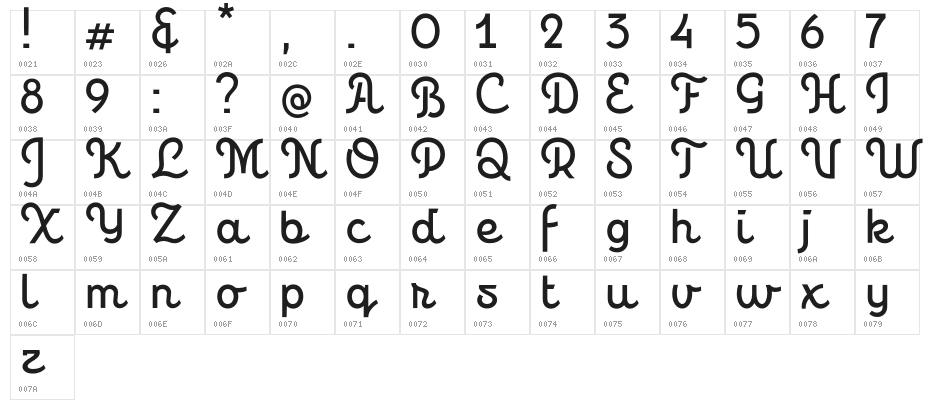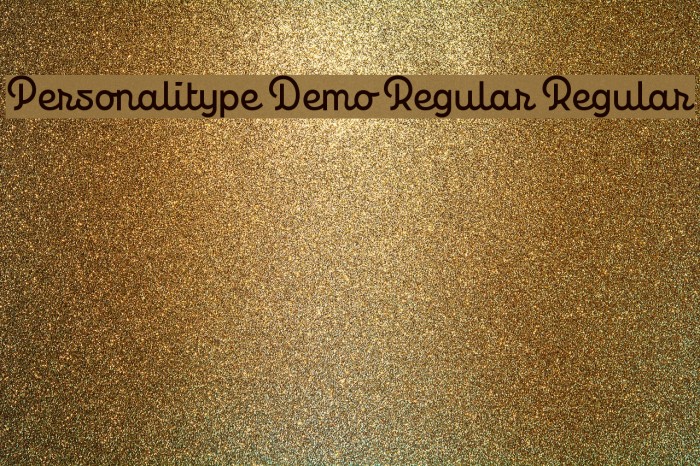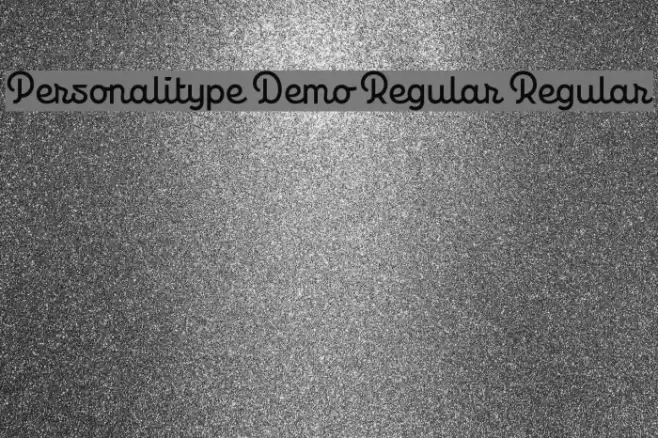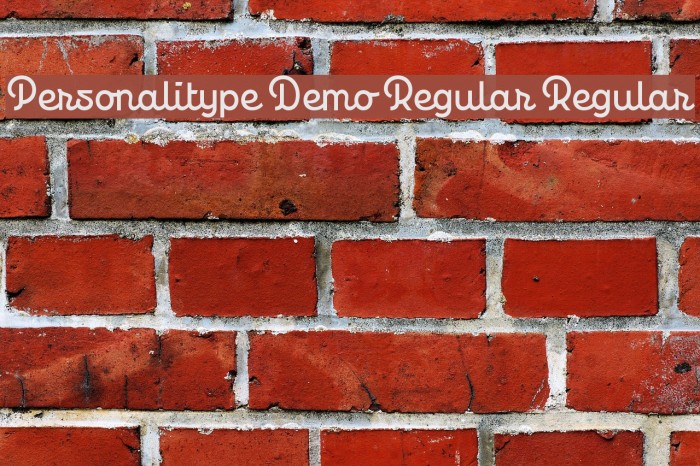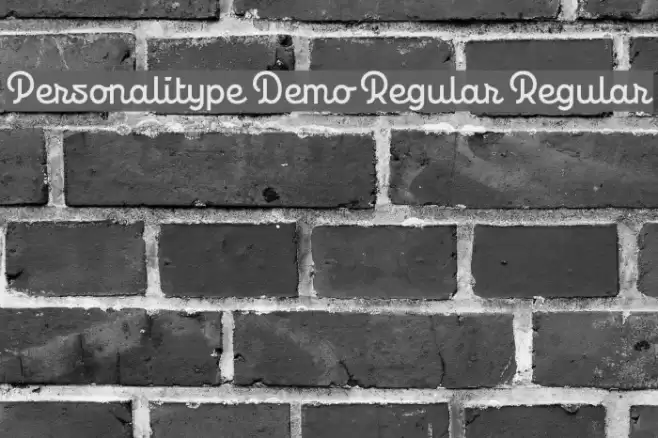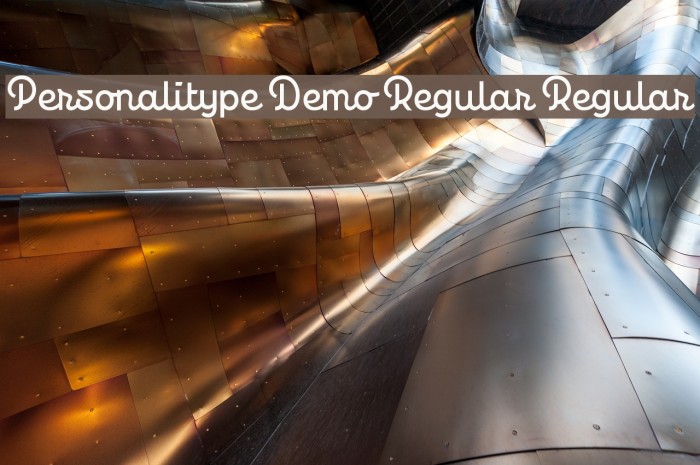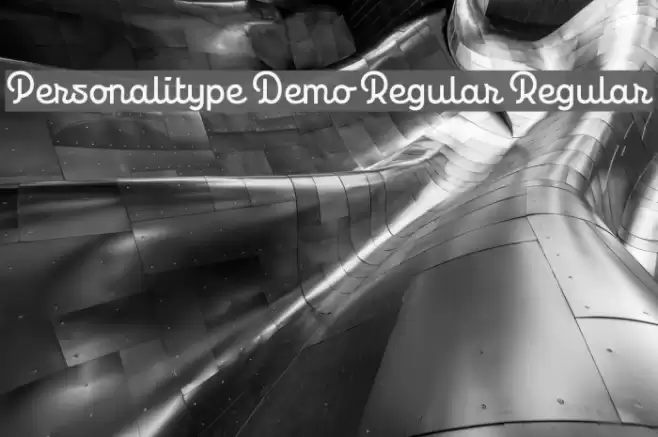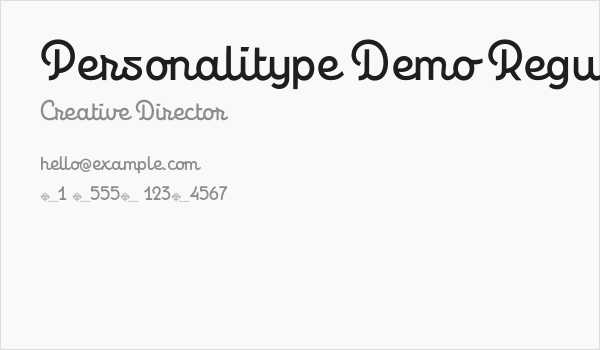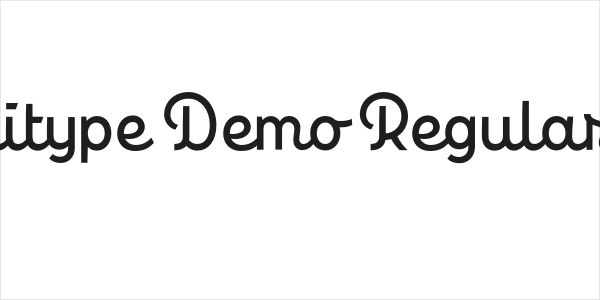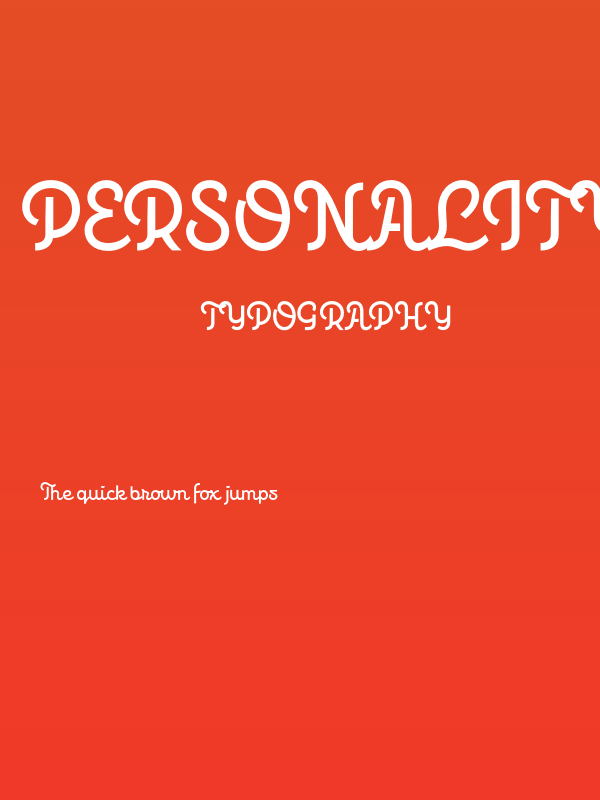
Personalitype Demo Regular Font
Personalitype Demo Regular Description
This font features a playful and unique design with a blend of whimsical curves and bold strokes. The uppercase letters exhibit a distinct flair with decorative elements, while the lowercase letters maintain a smooth and flowing appearance. The numerals are bold and clear, ensuring readability. Special characters are creatively styled, adding to the font's overall charm. This typeface combines a sense of fun with functionality, making it suitable for various creative projects.
| Overall Style | Playful and Whimsical |
| Use Case | Headlines, Logos, Creative Projects |
| Proposed Projects | Ideal for children's books, playful branding, creative posters, and invitations. |